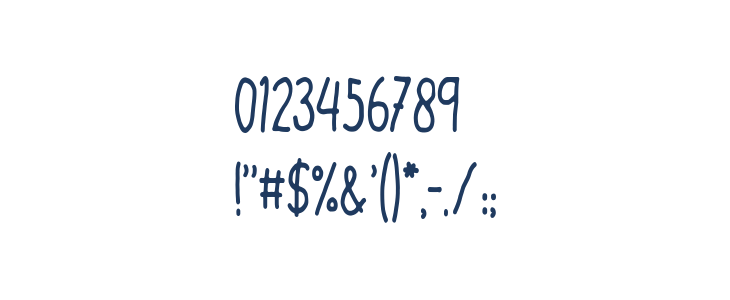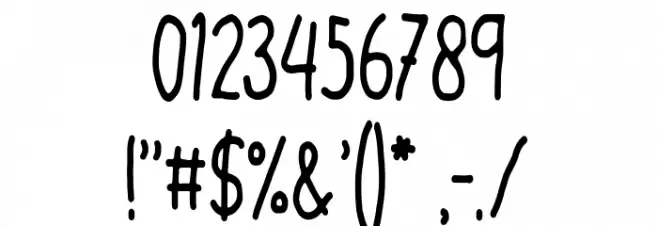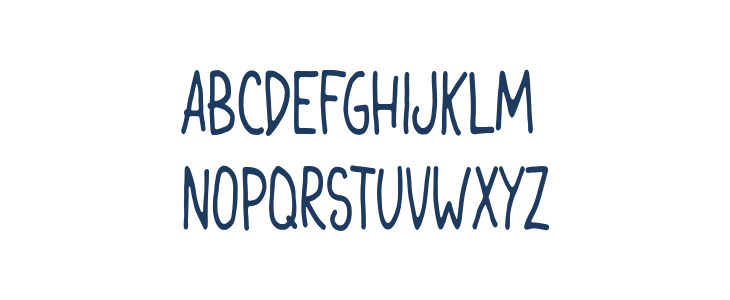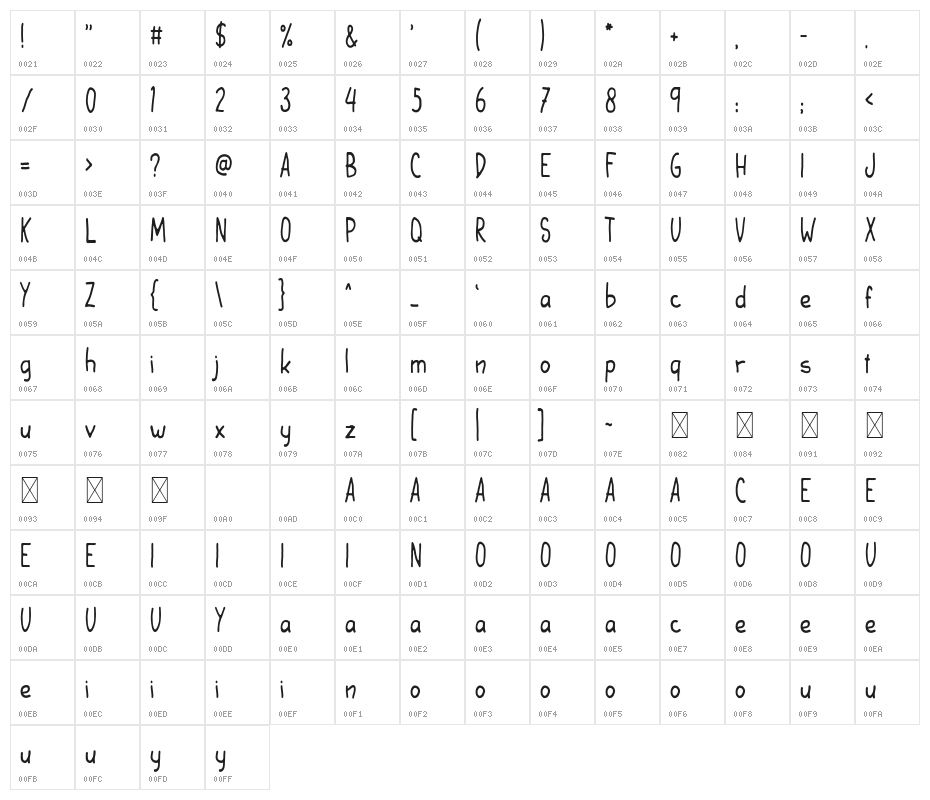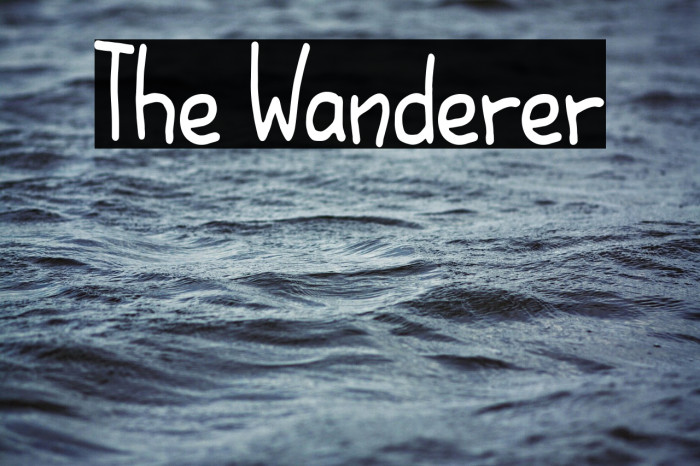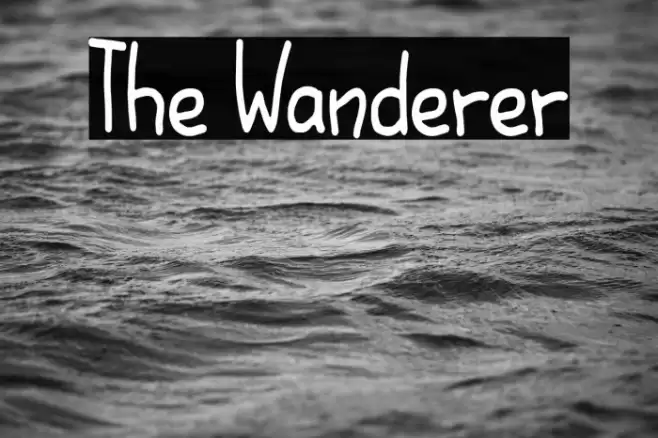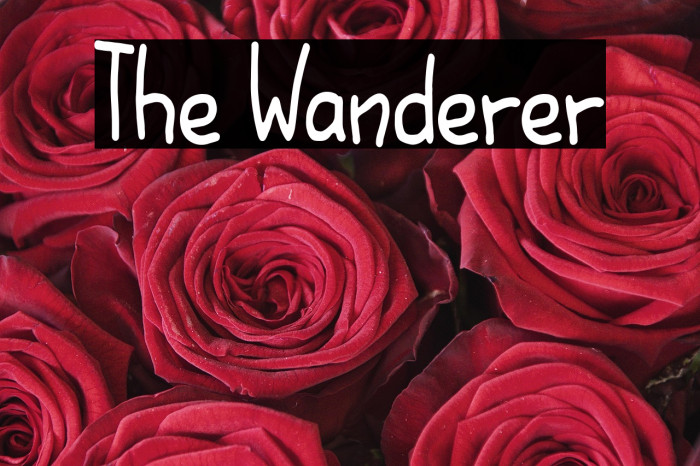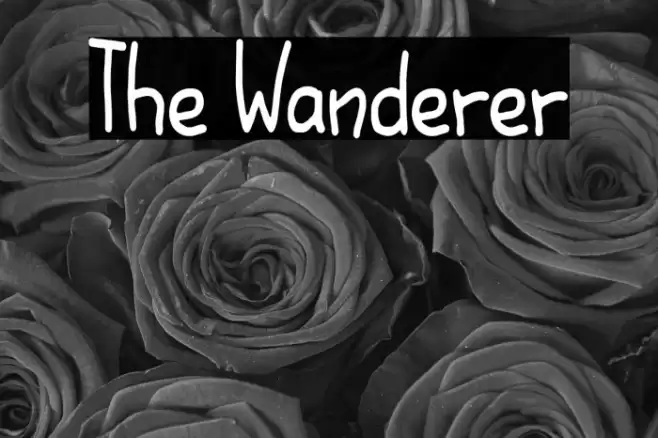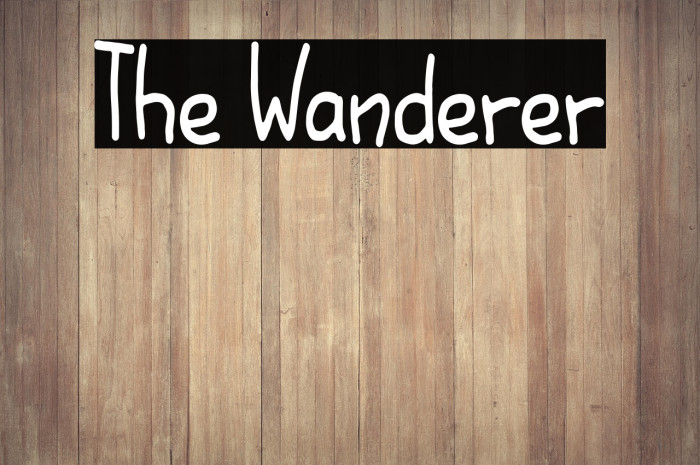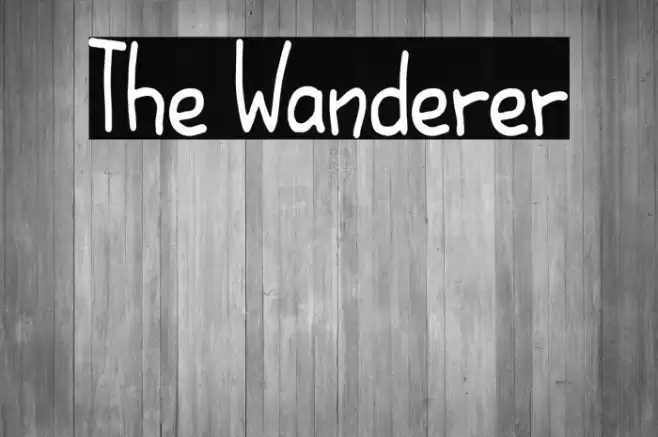
The Wanderer Font
The Wanderer Description
A playful, handwritten style font with irregular, casual letterforms that resemble a child's handwriting.
| Overall Style | Casual, Playful, Childlike |
| Use Case | Headlines, Children's books, Creative projects |